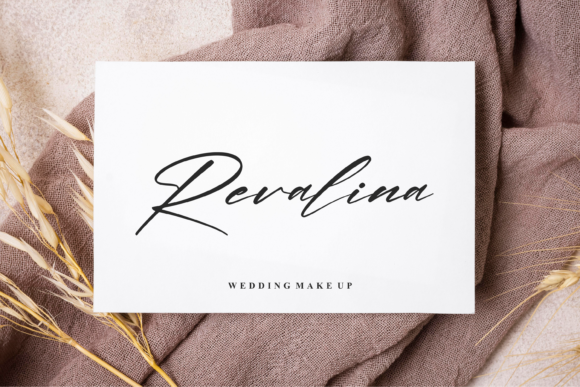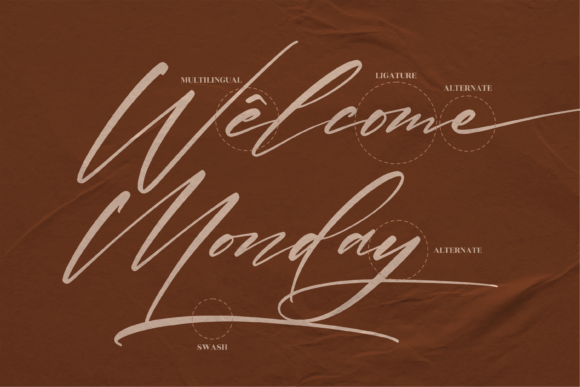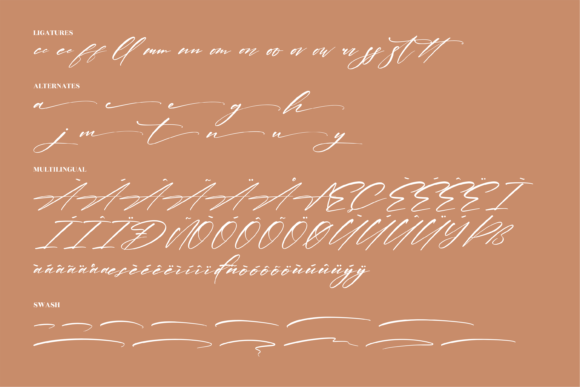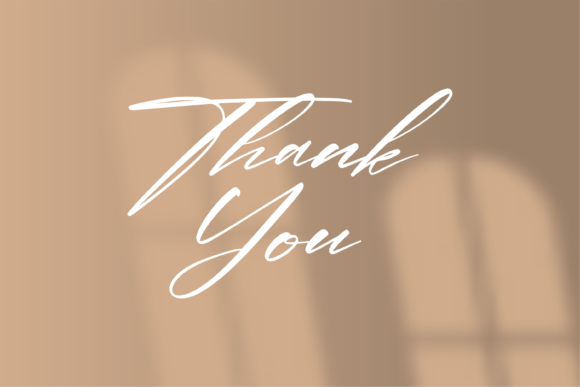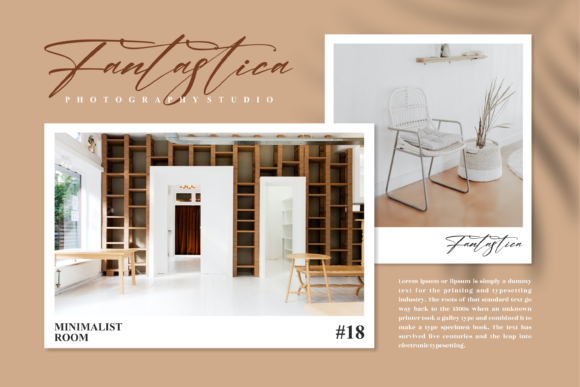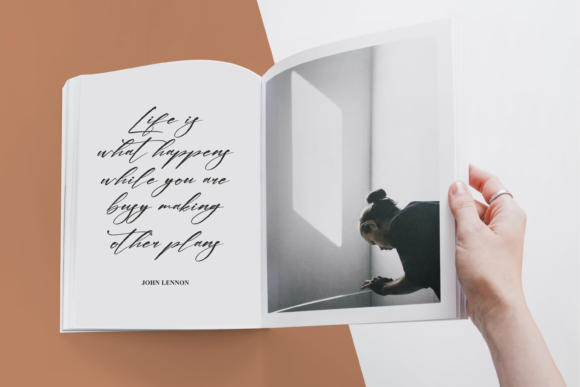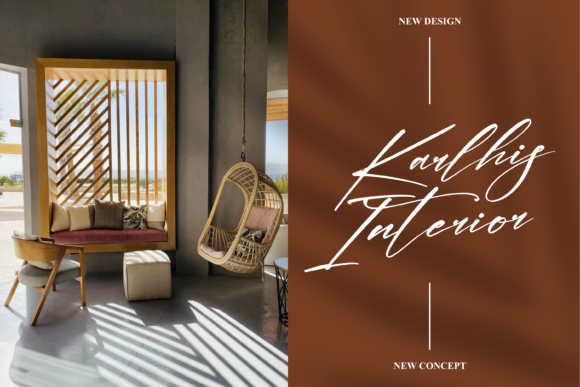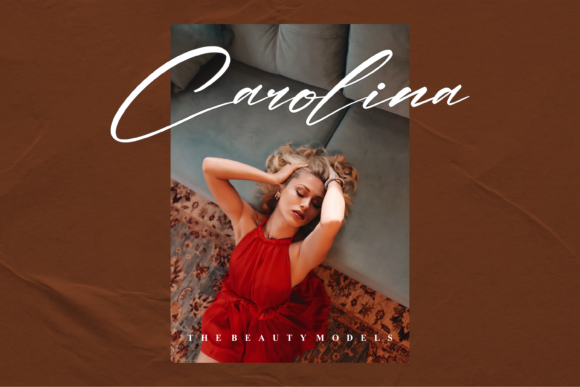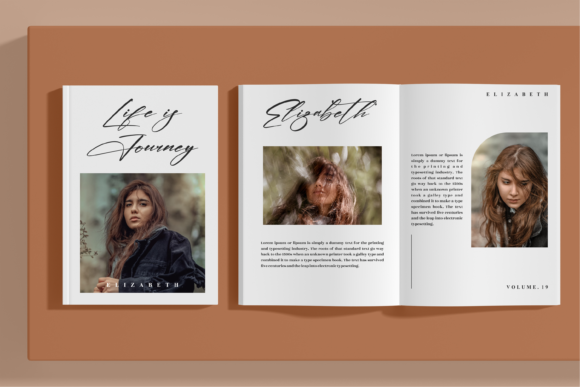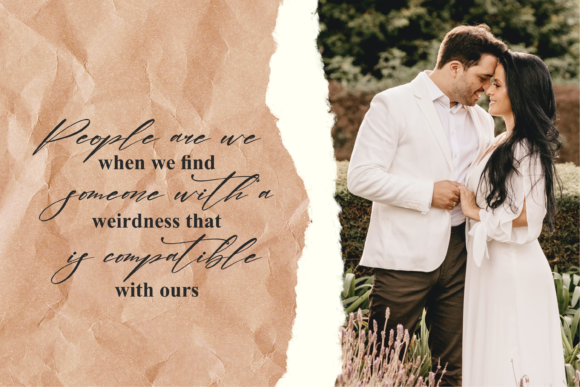
Verlitha Script Font
Verlitha Script is a chic, refined script font that emanates sophistication and elegance. Its stylish alternates and ligatures make this font the perfect match for any project.